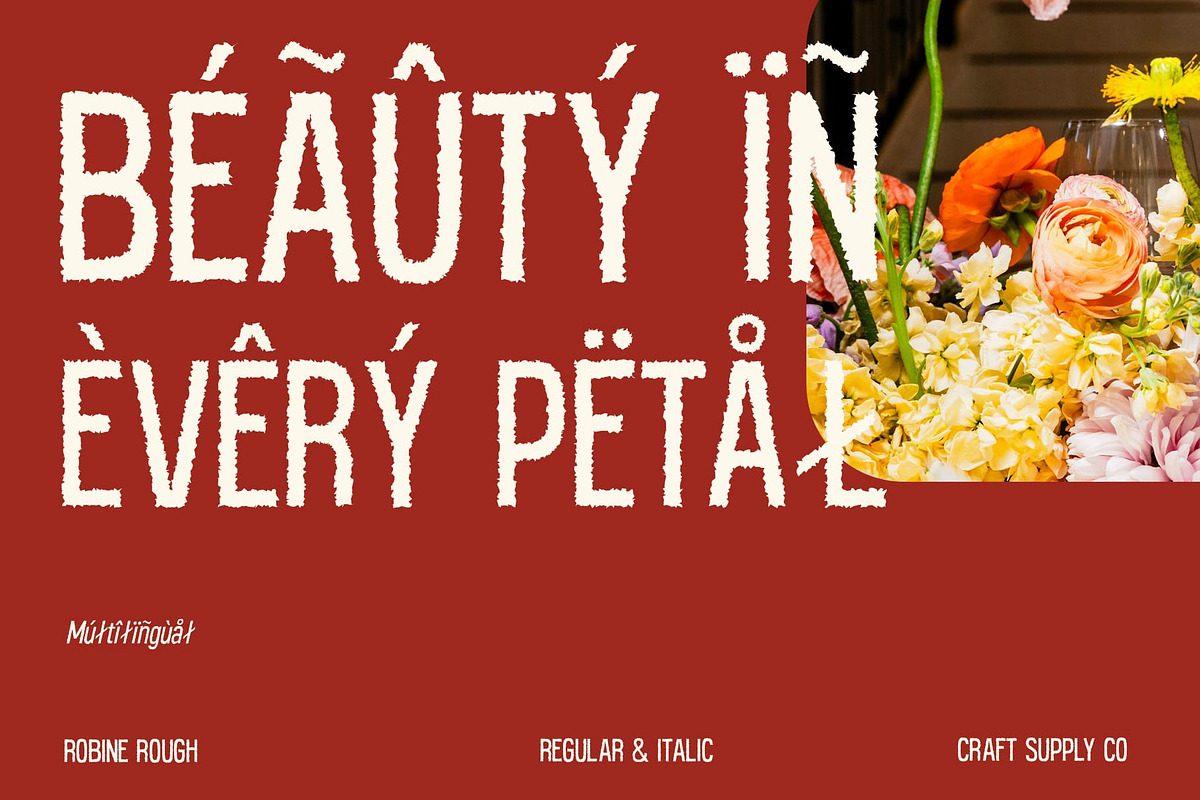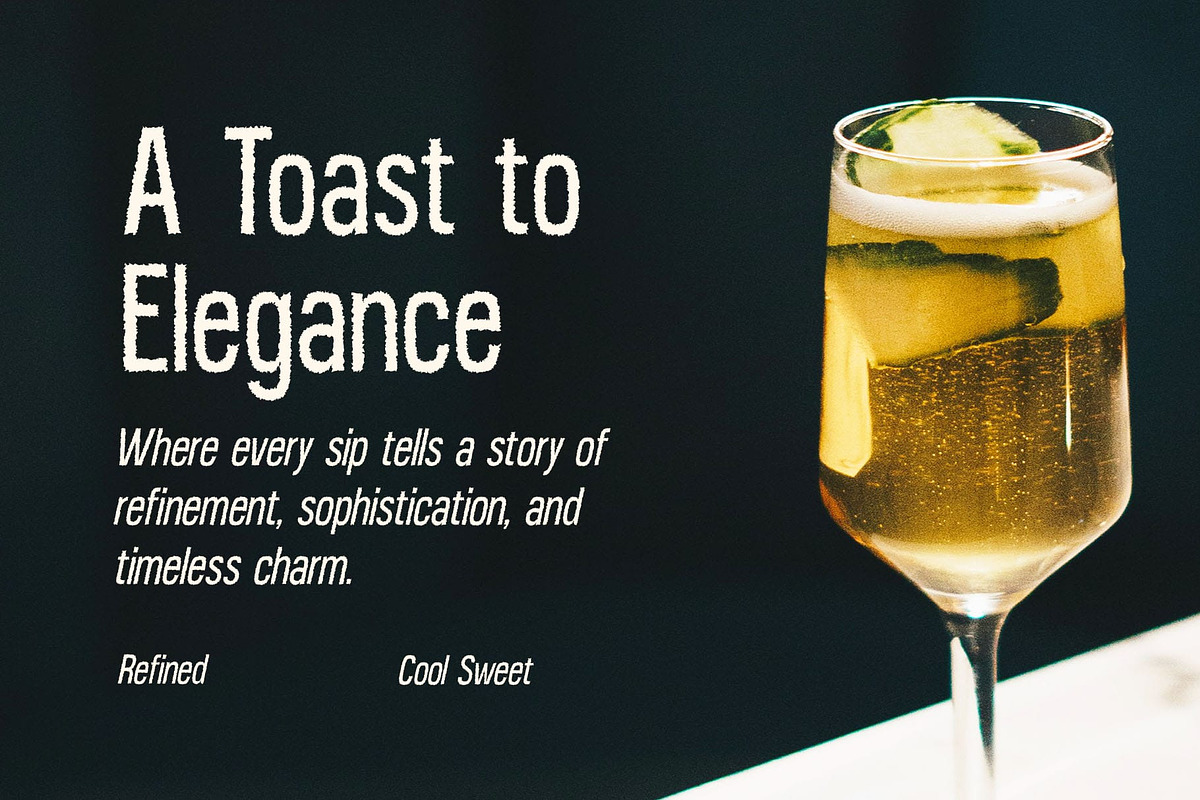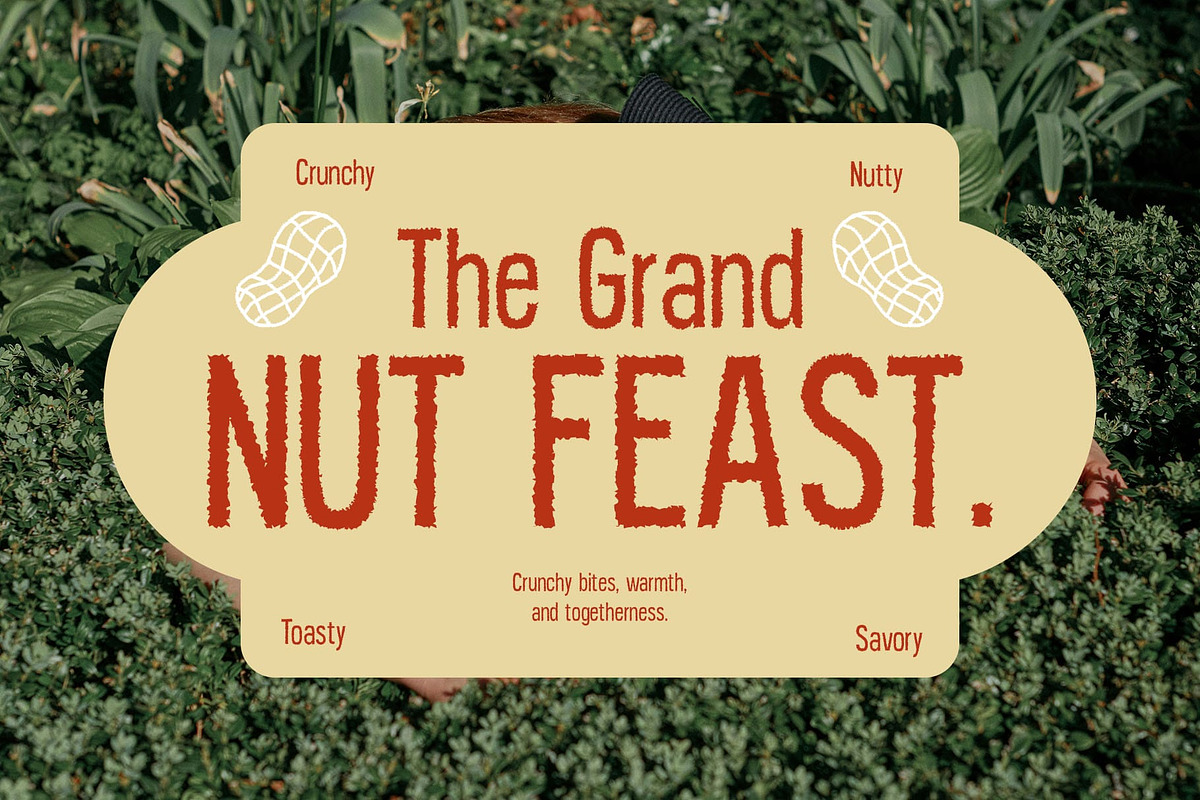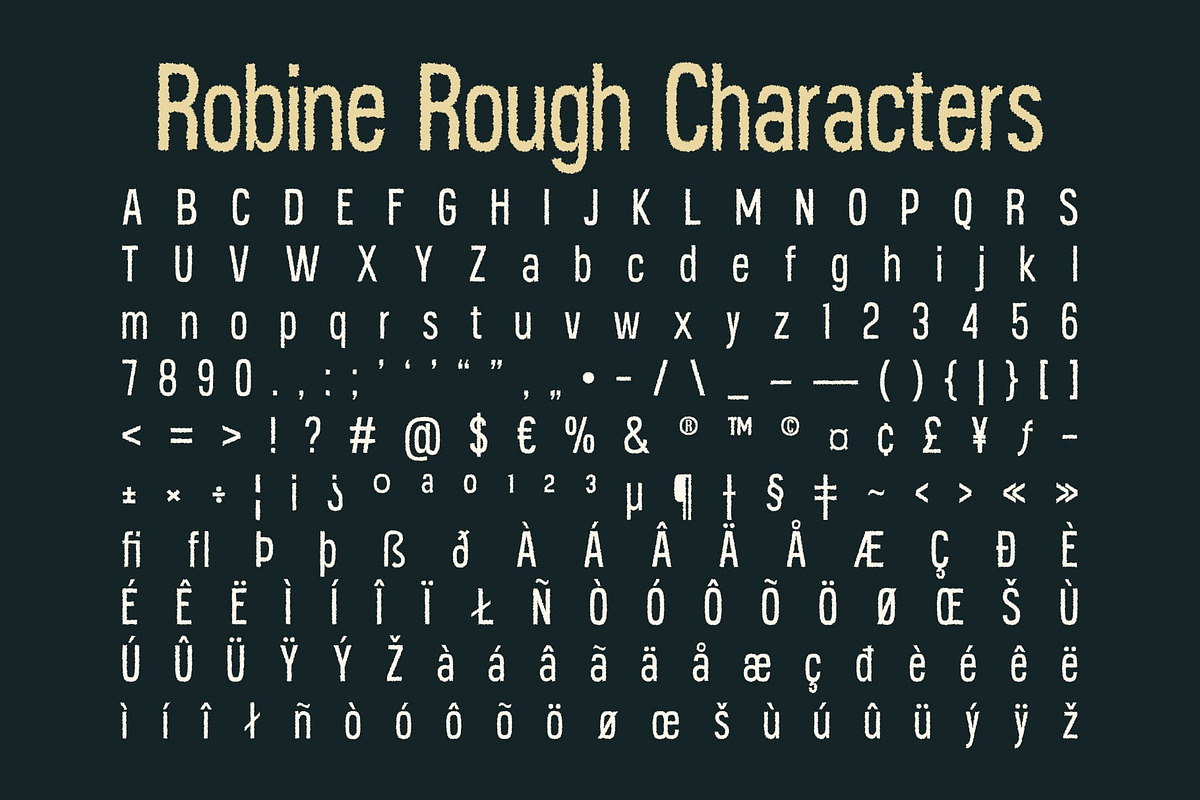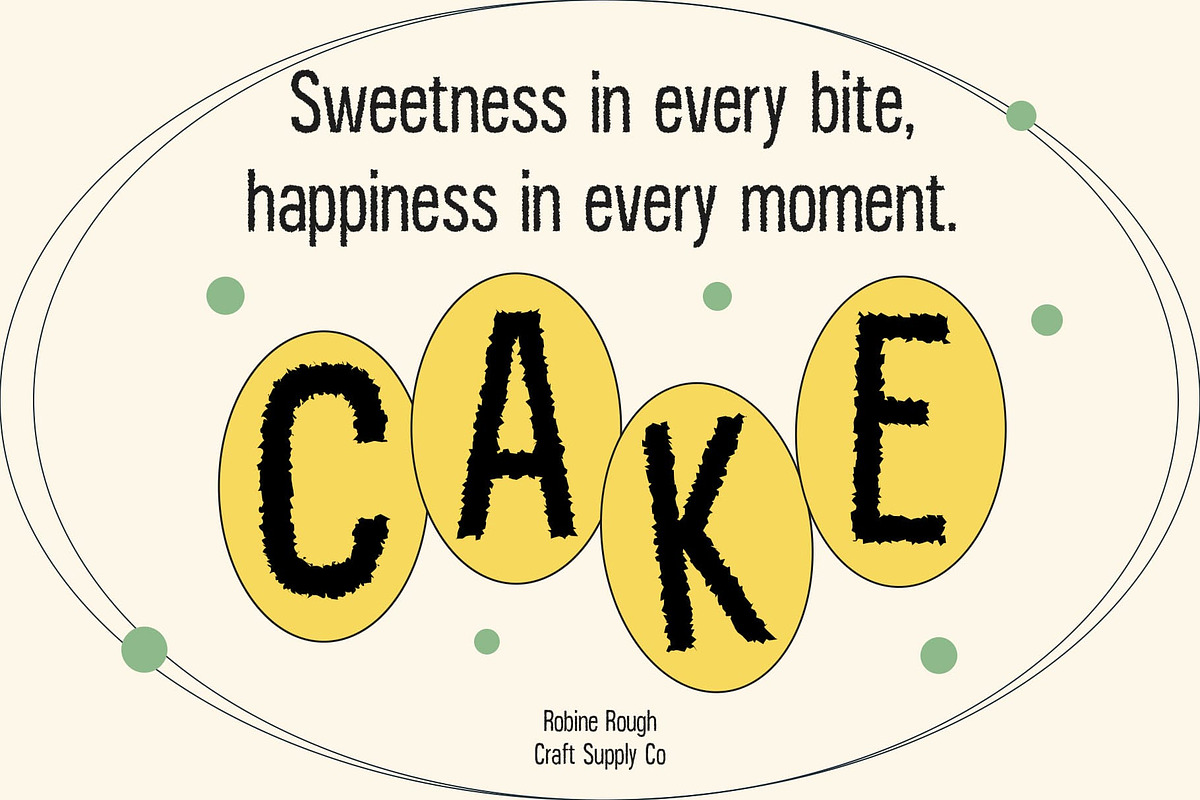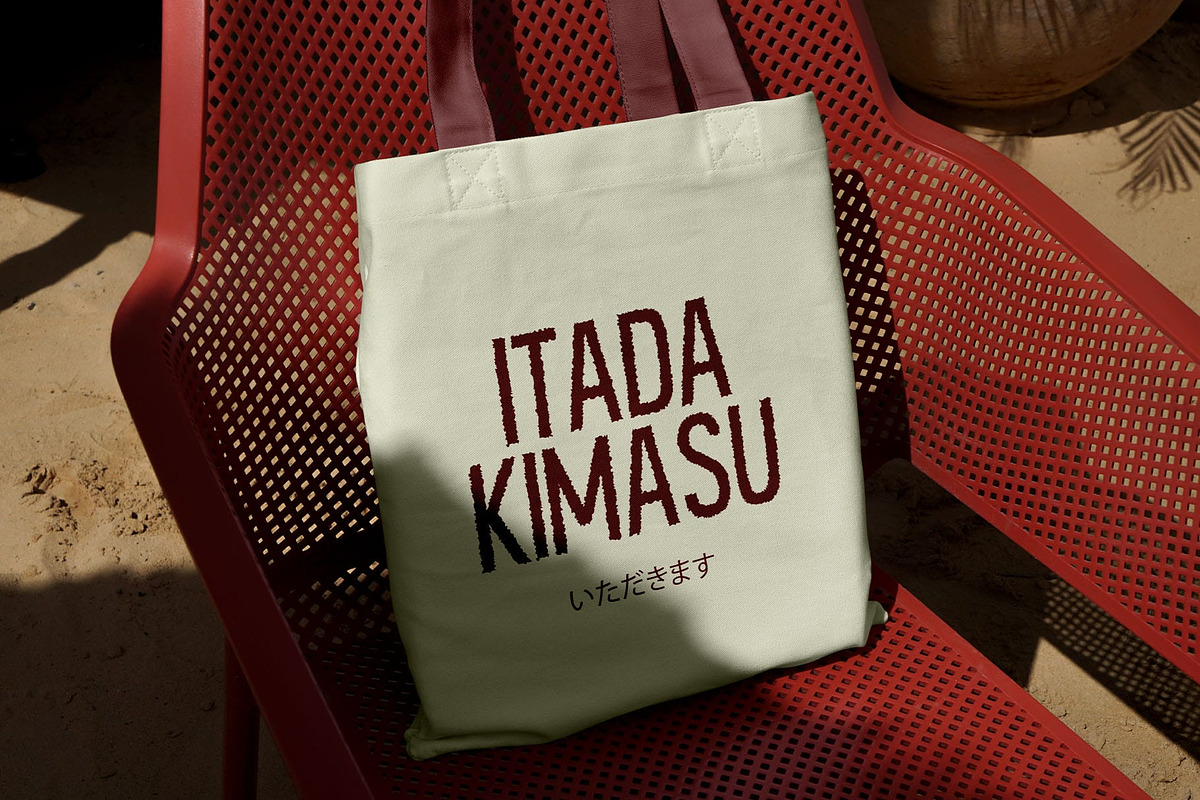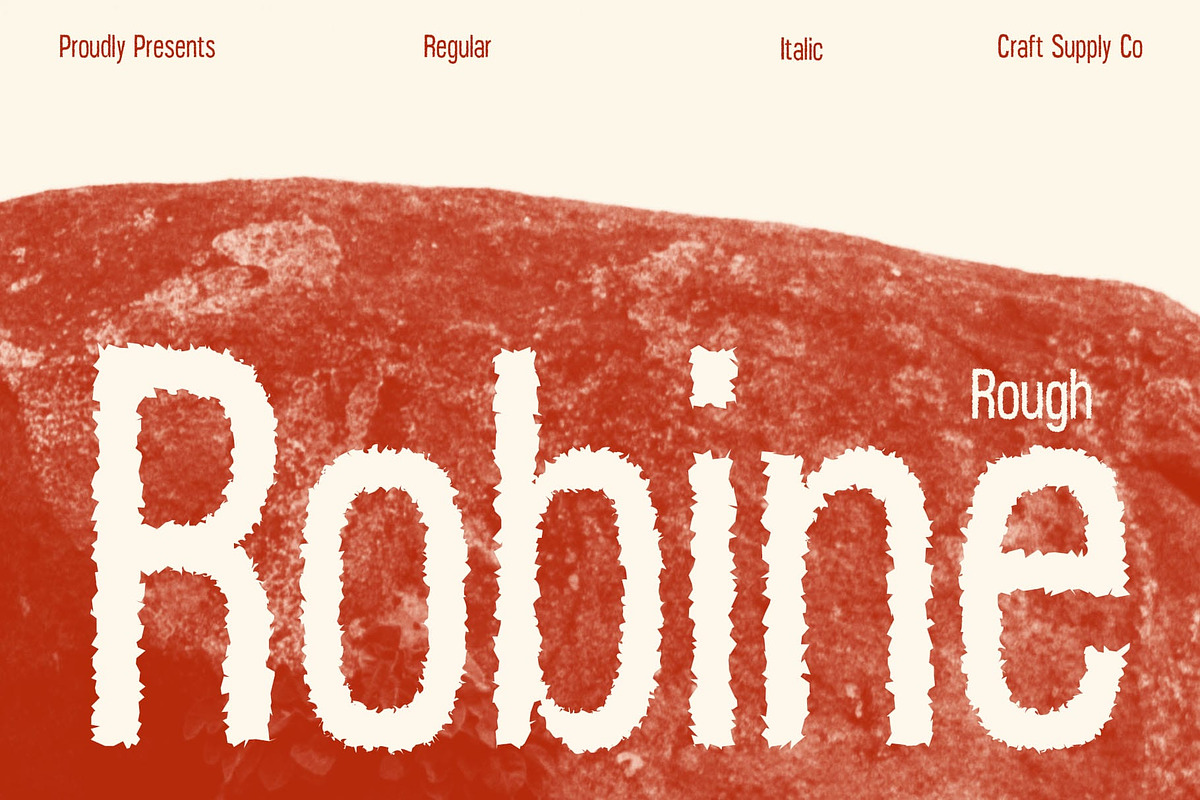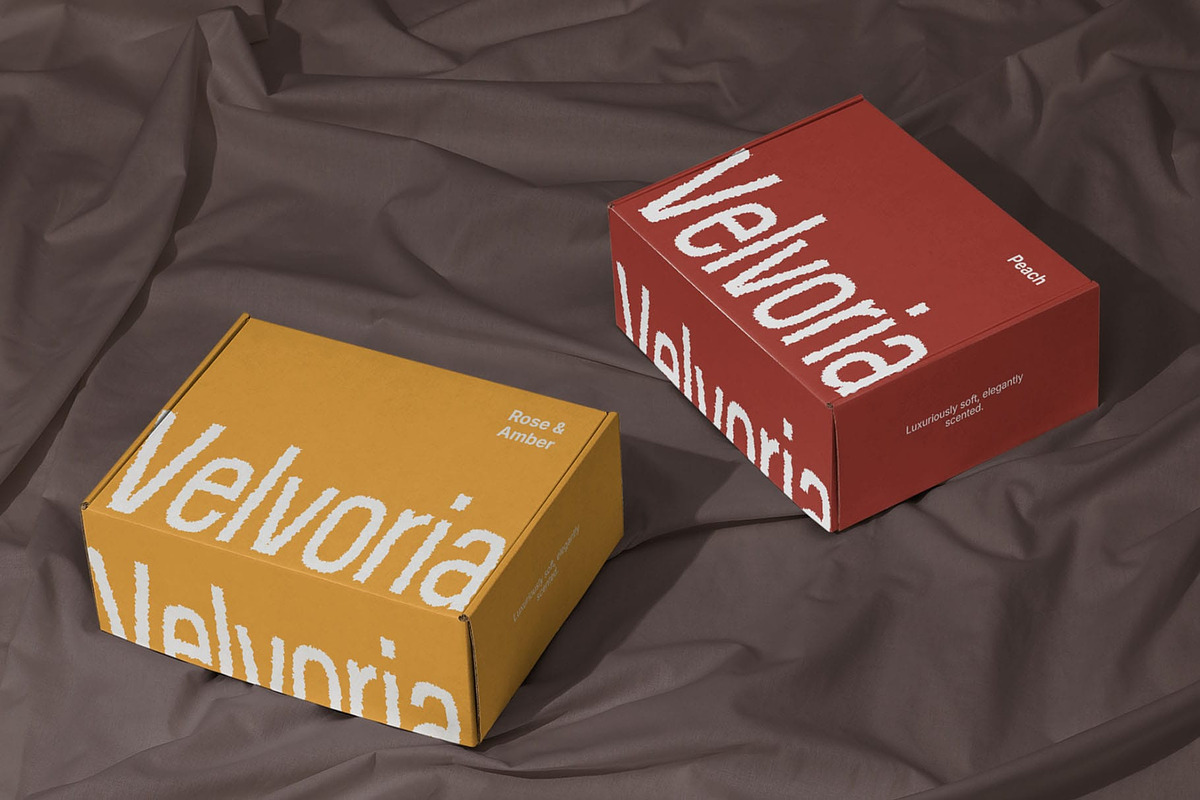
Robine Rough
Robine Rough Font: Bold Condensed Sans with a Rugged Edge
A Modern Sans-Serif with a Strong Presence Robine Rough is a modern sans-serif font featuring a condensed shape and bold structure, perfect for creating a strong and industrial aesthetic. Its narrow proportions and tight spacing maximize space efficiency while maintaining an assertive and confident look, making it ideal for attention-grabbing headlines, logos, and branding.
Rough Texture for a Distinct Character The rough, distressed texture adds a raw and rugged appeal, evoking a sense of strength, resilience, and authenticity. This worn-in effect enhances its bold personality, making it an excellent choice for vintage, grunge, or industrial-themed designs. Whether used in print or digital media, the textured look provides depth and a handcrafted feel.
Perfect for High-Impact Design Applications Robine Rough excels in branding, posters, packaging, apparel design, and editorial layouts that require a striking and masculine touch. Its industrial yet versatile nature allows it to adapt seamlessly to sports, outdoor, adventure, and urban-style projects, adding a powerful visual identity.
A Bold Statement with Versatile Appeal Designed to stand out, Robine Rough balances modern aesthetics with a raw, gritty edge, making it a go-to font for designers seeking boldness, durability, and character. Whether you’re crafting a strong brand identity or an impactful poster design, this font delivers an unmistakable statement.